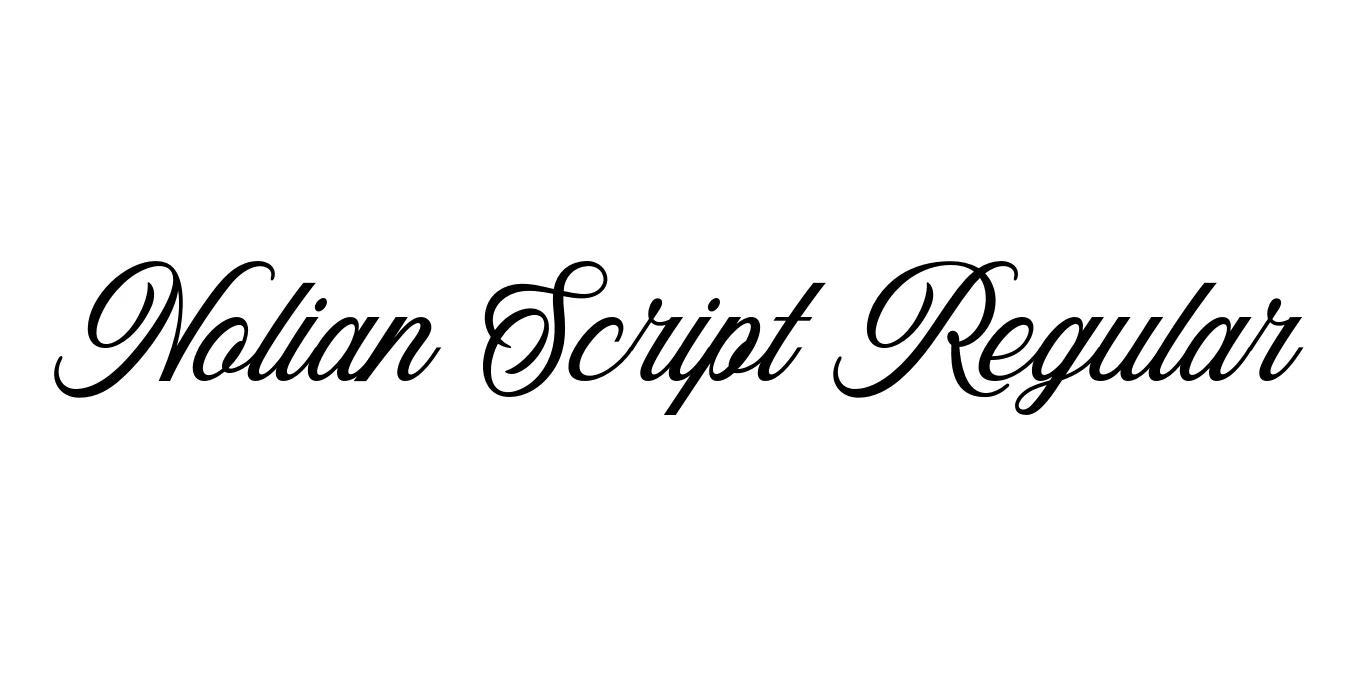
Nolian Script Regular
Designed by Maulana Creative
Nolian Script Regular is a sophisticated modern calligraphy typeface designed to bridge the gap between traditional handwriting and contemporary digital aesthetics. Its fluid, sweeping strokes and balanced proportions create a sense of effortless elegance, making it an excellent choice for designers who require a font with a personal, handcrafted feel. The typeface captures the essence of fine-point penmanship with a rhythmic flow that guides the eye naturally across the text.
This font is particularly well-suited for high-end creative projects where personality and style are paramount. Nolian Script often incorporates advanced OpenType features, including stylistic alternates and ligatures, allowing for a custom, bespoke appearance in every application. Whether used for a minimalist logo or an elaborate invitation, it brings a touch of luxury and refinement to the visual narrative.
Nolian Script Regular Best Uses
Perfect for romantic and formal event stationery.
Ideal for creating sophisticated logos and personal signatures.
Excellent for high-impact quotes and lifestyle photography overlays.
Adds a premium and artisanal touch to beauty and luxury products.